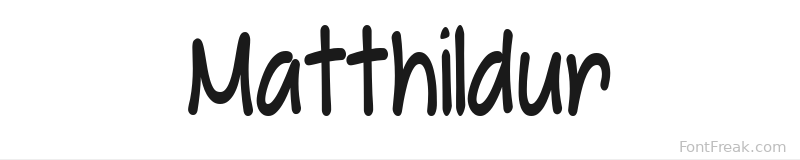
Matthildur
About Matthildur
Matthildur, created by designer Misti Hammers in 2022, is a charming handwritten font that captures the essence of personal touch and creativity. With its playful strokes and organic flow, this font stands out in the world of typography, making it an excellent choice for various design projects. The Matthildur font features a moderate stroke weight that balances legibility with a whimsical flair, allowing for both clear communication and artistic expression. The spacing is well-considered, providing ample breathing room between characters, which enhances readability while maintaining a cohesive aesthetic.
This versatile font is perfect for a variety of use cases. It shines in wedding invitations, where its elegant yet friendly style can convey warmth and joy. Additionally, Matthildur works beautifully on restaurant menus, giving a personal touch that reflects a cozy dining experience. Graphic designers will appreciate its adaptability for social media graphics, where eye-catching typography can elevate posts and stories. Furthermore, this font can be utilized in branding projects, providing a unique signature style that resonates with audiences. Small business owners will find it particularly valuable for promotional materials, as it adds character and approachability to their brand identity.
Targeting graphic designers, small business owners, and content creators, Matthildur offers a delightful blend of creativity and functionality. Its unique personality allows it to stand out among the myriad of fonts available today. For anyone looking to add a personal touch to their projects, the Matthildur font free download provides an accessible option that doesn’t compromise on style. With its distinctive charm and versatility, Matthildur is sure to become a go-to choice for designers aiming to infuse their work with a sense of warmth and individuality.